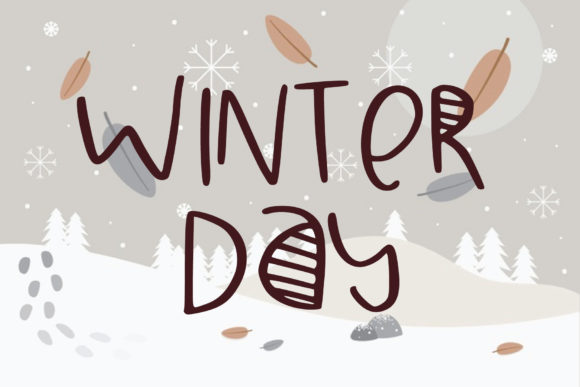
Behold Winter Day, the font that dances upon the page like snowflakes on a crisp winter's day - a display font that will make your designs shimmer with an enchanting allure.
With its natural and effortlessly stylish curves, Winter Day is the perfect choice for those who seek to create designs that exude warmth and a touch of whimsy. Its charming irregularity adds a touch of individuality to any project, allowing your creations to stand out from the crowd.
This versatile font is a master of adaptability, lending its graceful presence to a myriad of designs. From whimsical posters that evoke the magic of a winter wonderland to elegant invitations that capture the essence of the season, Winter Day effortlessly elevates any concept into a work of art.
Like the gentle whisper of winter's wind through barren branches, Winter Day's delicate strokes evoke a sense of peace and tranquility. Its flowing lines create a soothing rhythm that draws the eye and captivates the soul.
Immerse yourself in the enchanting embrace of Winter Day, and let your imagination soar. With this captivating font as your companion, your designs will blossom into masterpieces that resonate with emotion and leave an unforgettable impression.